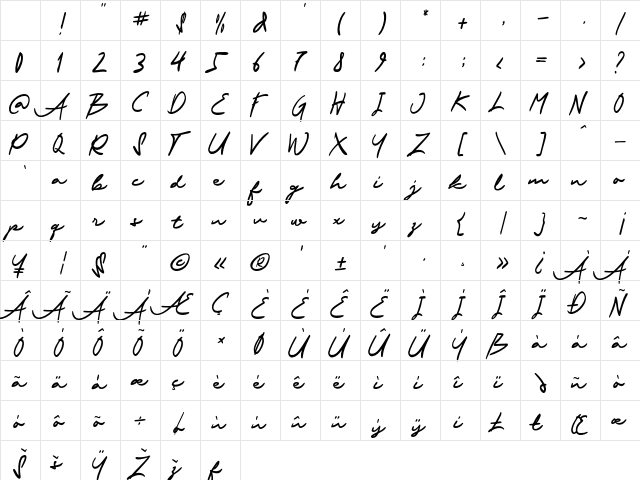
Complete Pentecoste Demo Regular glyph index. Displaying only characters natively supported by Pentecoste Demo Regular font.
Pentecoste Demo is a composed and adaptable typeface that performs quietly and consistently across a wide range of design contexts.